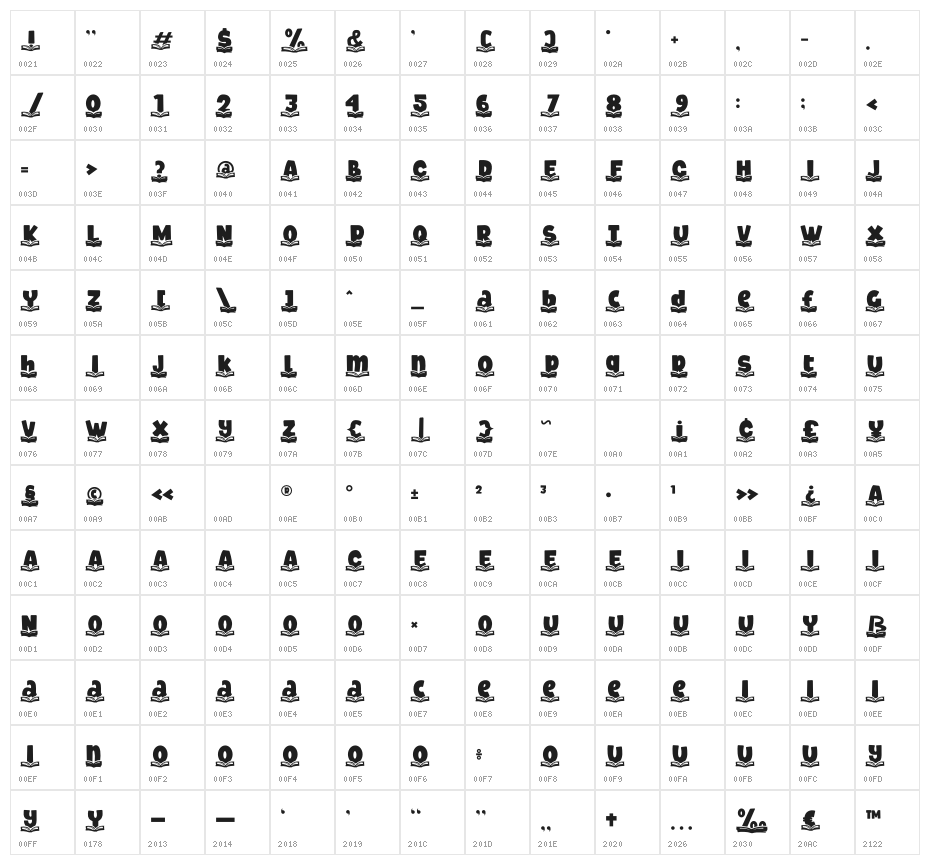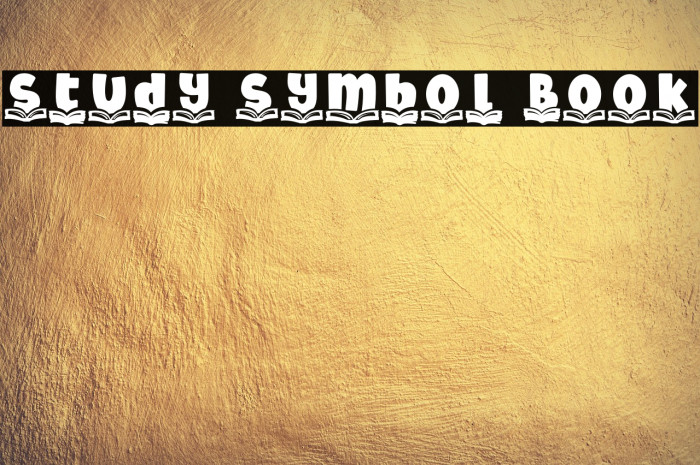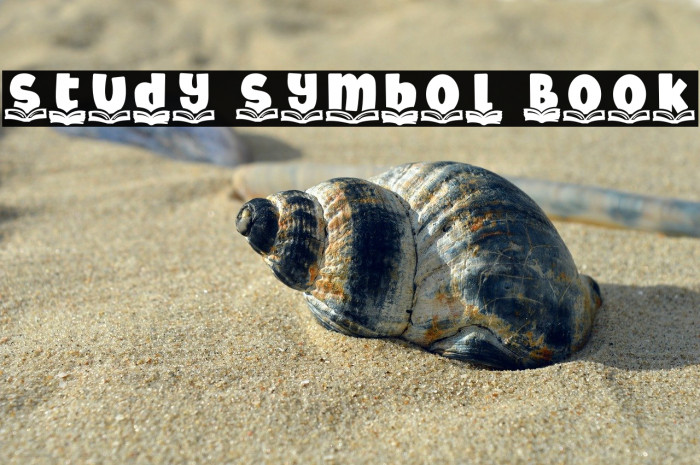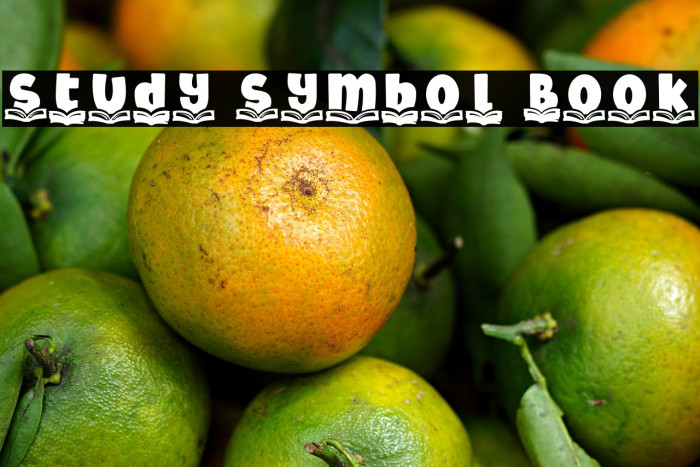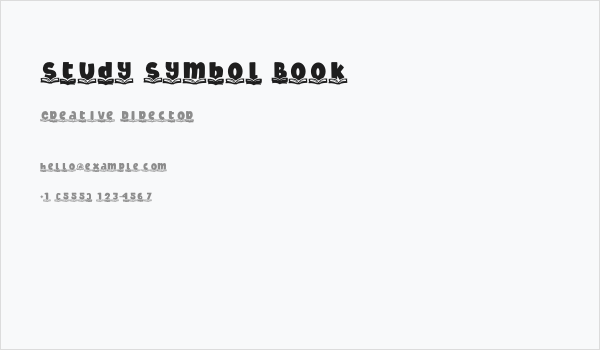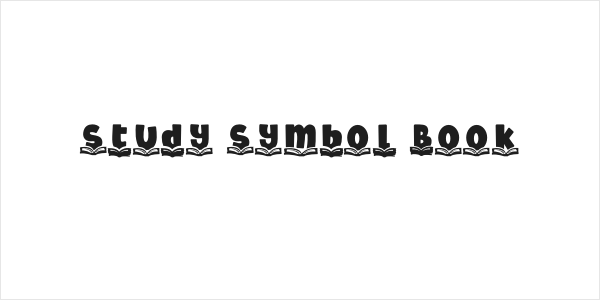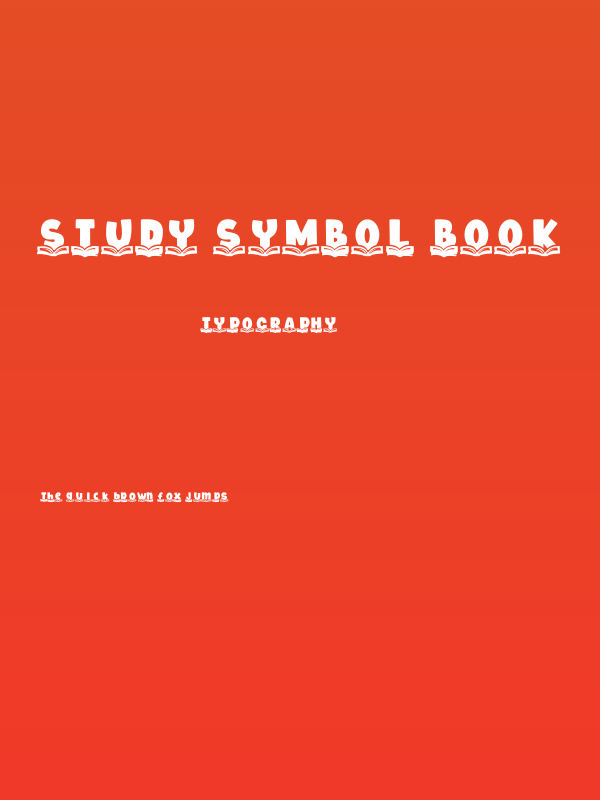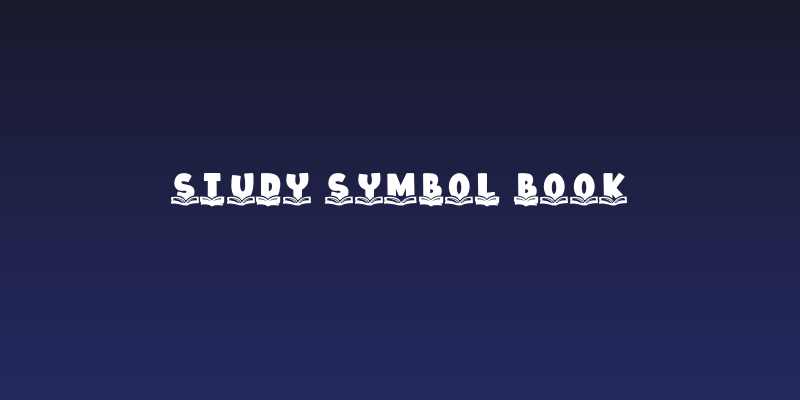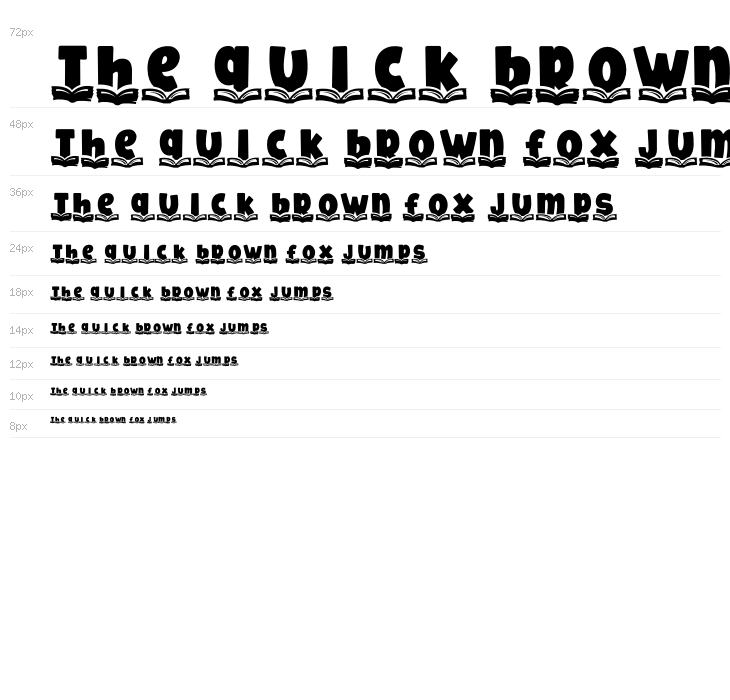
Study Symbol Book Font
Study Symbol Book Description
This font features bold, blocky characters with a playful and educational theme. Each character is accompanied by an open book symbol at the base, emphasizing a scholarly or academic feel. The letters are uniformly thick, providing a strong visual impact, and the overall design is highly decorative. The font is well-suited for projects that aim to convey a sense of learning or knowledge, making it ideal for educational materials, children's books, or themed events. The consistent use of the book symbol across all characters adds a unique and cohesive element to the design.
| Proposed Projects | Ideal for educational materials, children's books, themed events, or any project emphasizing learning and knowledge. |